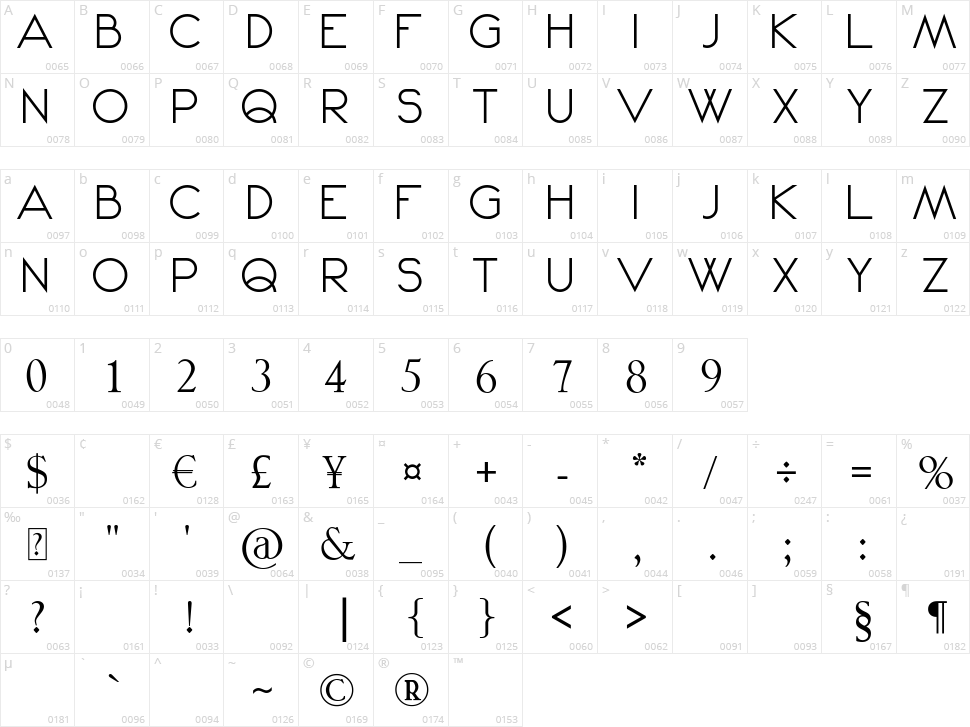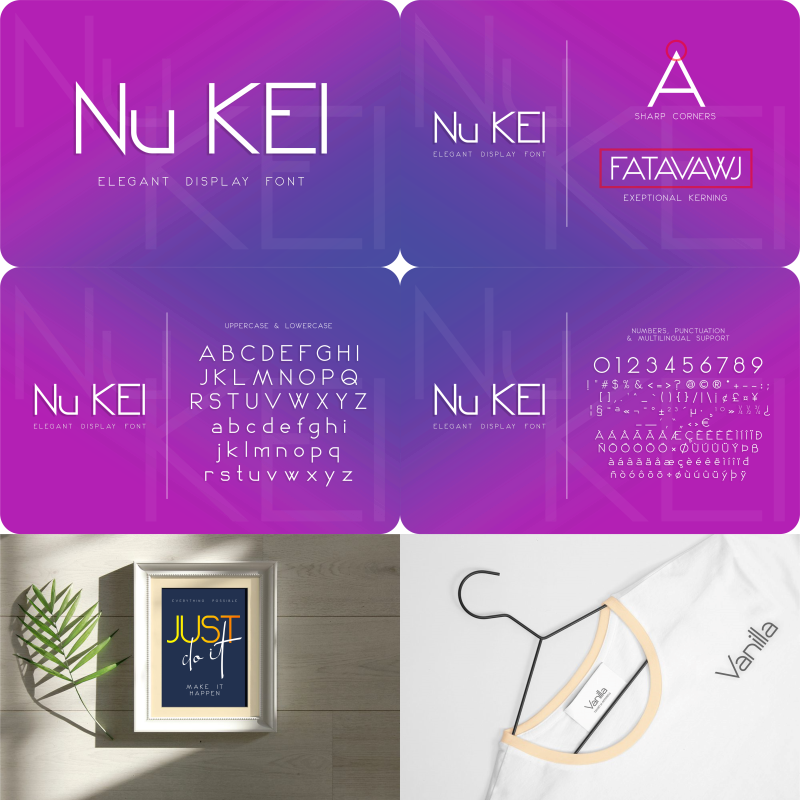
Nu Kei
Note of the author Nu Kei fuses clean typography with a futuristic outlook. A new font display with a clean feel with a futuristic modern style, perfect for any extraordinary project that requires an elegant & minimalist taste. Making it a great addition to any font library!